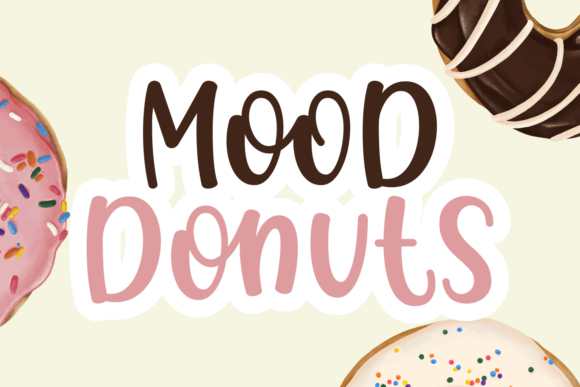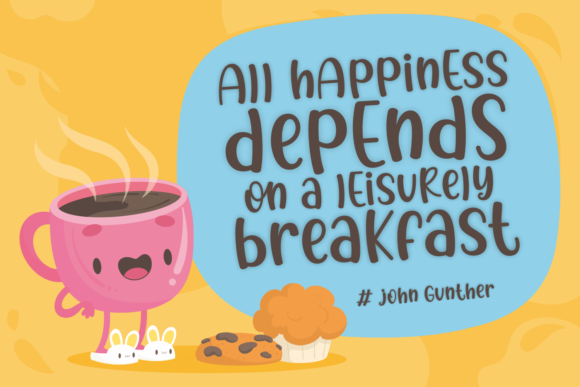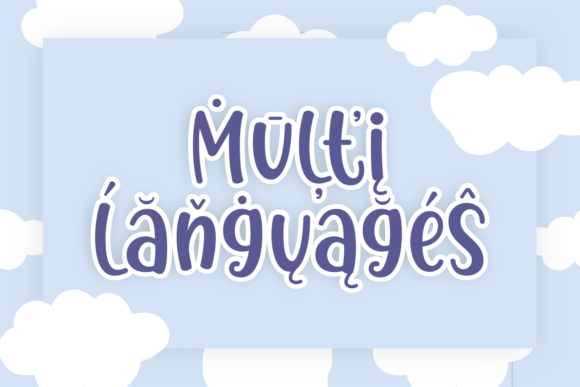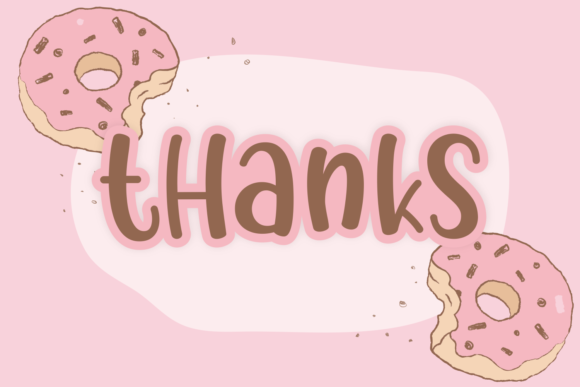
Introduction to Monday Mood Font
Monday Mood is a chic, fun and quirky display font.
It is perfect for any branding project such as logos, t-shirt printing, creative products, and more .